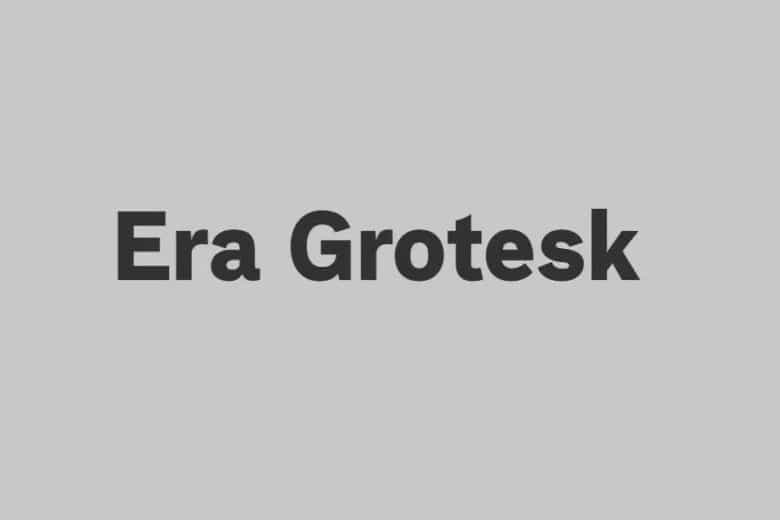
Era Grotesk is a sans serif type family that is designed by Typolar and the font reflects simplicity with style.. These fonts without the hooks, also known as Grotesques, have been the reigning kings and queens of typography for the past hundred years because they are boring. By recalling the pathfinder specimens of this style, Era restores the humane overtones which were absent in the Neo-Grotesque versions of the 1950s.